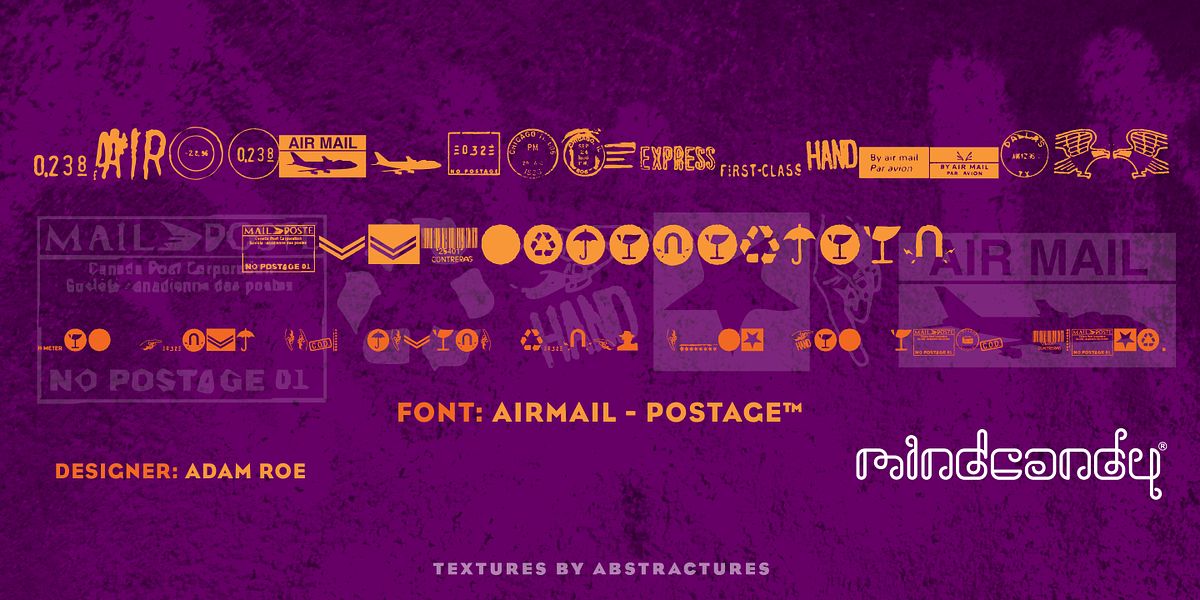
AirMail Postage™
Airmail™ Postage is a dingbat font designed by Adam Roe in 1994. It features graphic symbols commonly found on letters and packages, including USPS logos and postage elements. The font's rough, handmade aesthetic lends itself well to vintage-inspired designs.